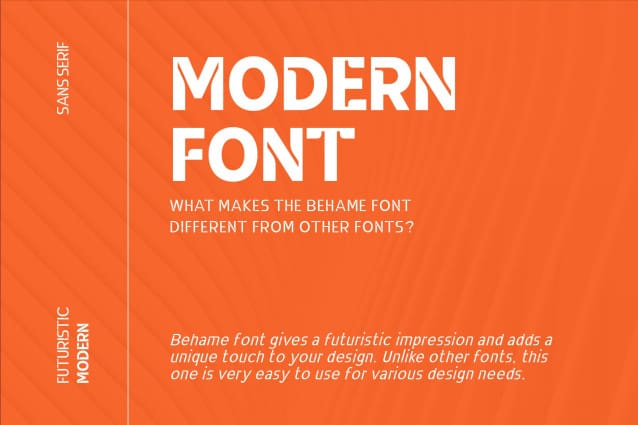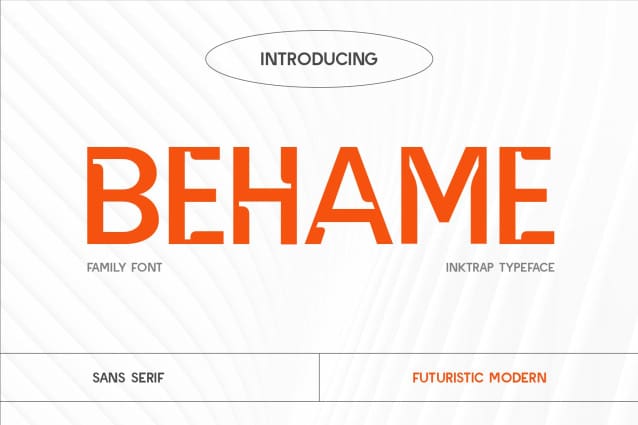
Behame Font
Behame Font is a sleek sans serif font with clean, precise inktraps in every glyph, giving it a distinctly futuristic and modern appeal. The dynamic design offers a sense of movement and sharpness, making it perfect for cutting-edge branding and tech-focused designs. Available in a full range of styles from light to black, with italic options for each weight, Behame’s versatility and stylish inktrap detailing make it an excellent choice for both bold headlines and refined body text. Its unique features provide a dynamic yet clean look, ideal for projects that demand a forward-thinking aesthetic.